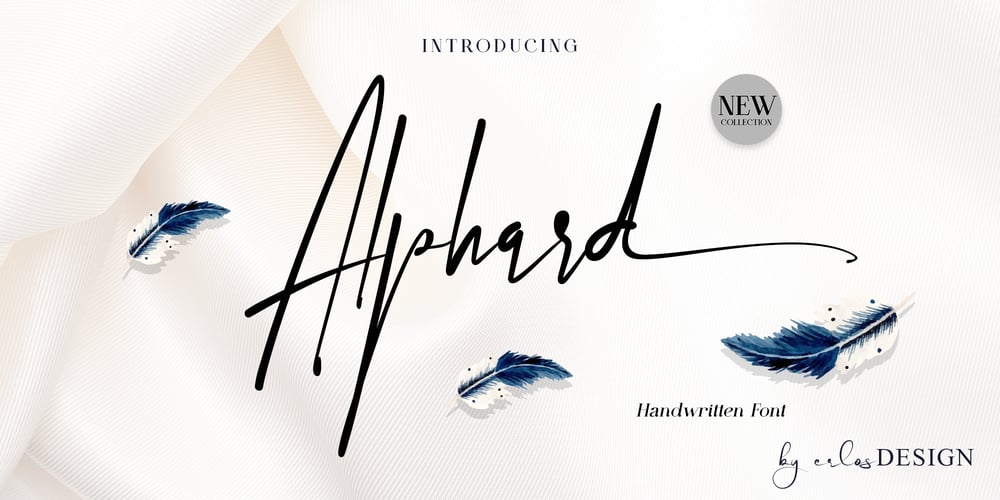
Alphard Font Family was designed by Erlangga Suherman and published by ErlosDesign. Alphard contains 1 styles and family package options. Alphard – Handwritten Font by erlosDESIGNAlphard is a delicate, elegant and flowing handwritten font. It has beautiful and well balanced characters and as a result, it matches a wide pool of designs. Alphard features a varying baseline, smooth lines, gorgeous glyphs and stunning alternates. Add it to your most creative ideas and notice how it makes them come alive!